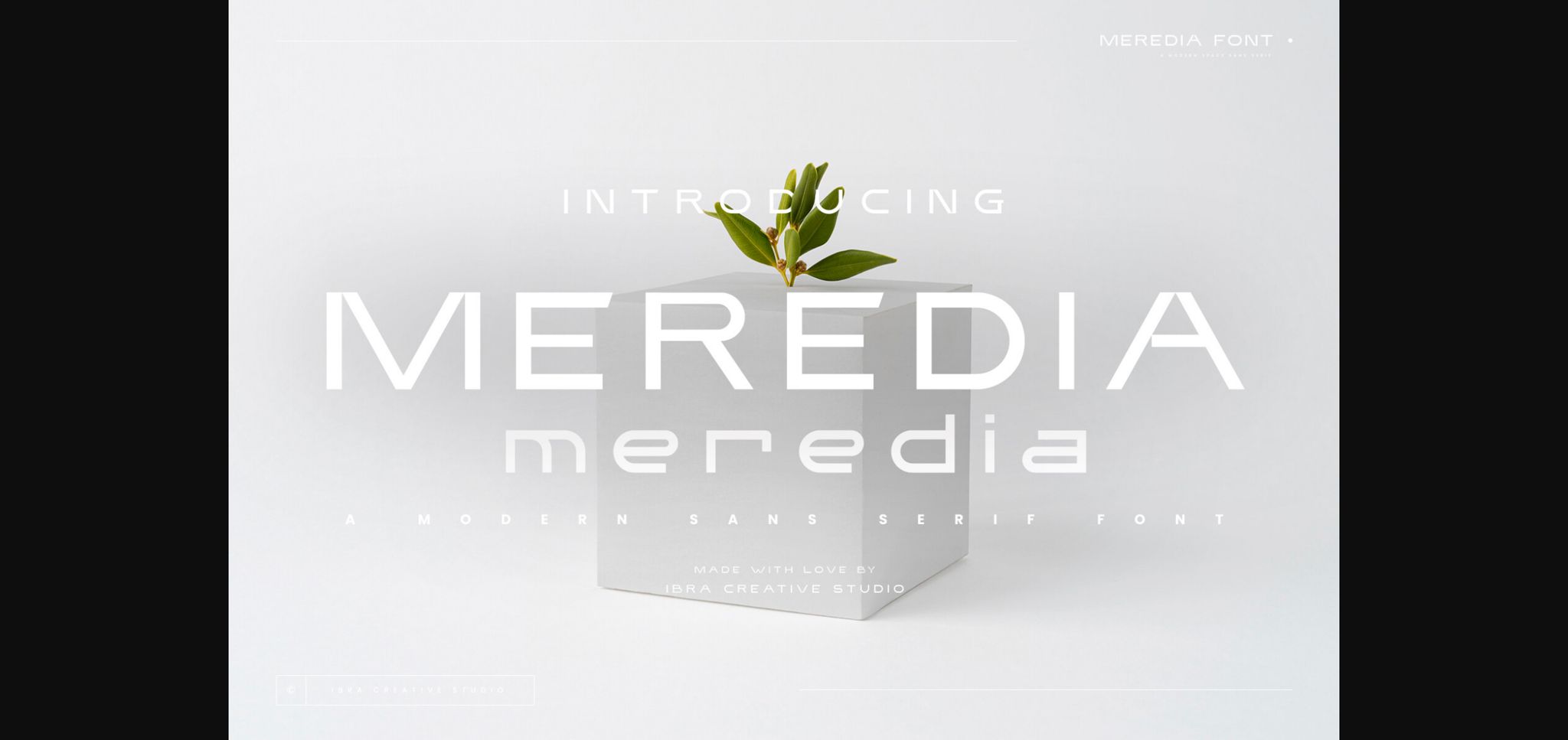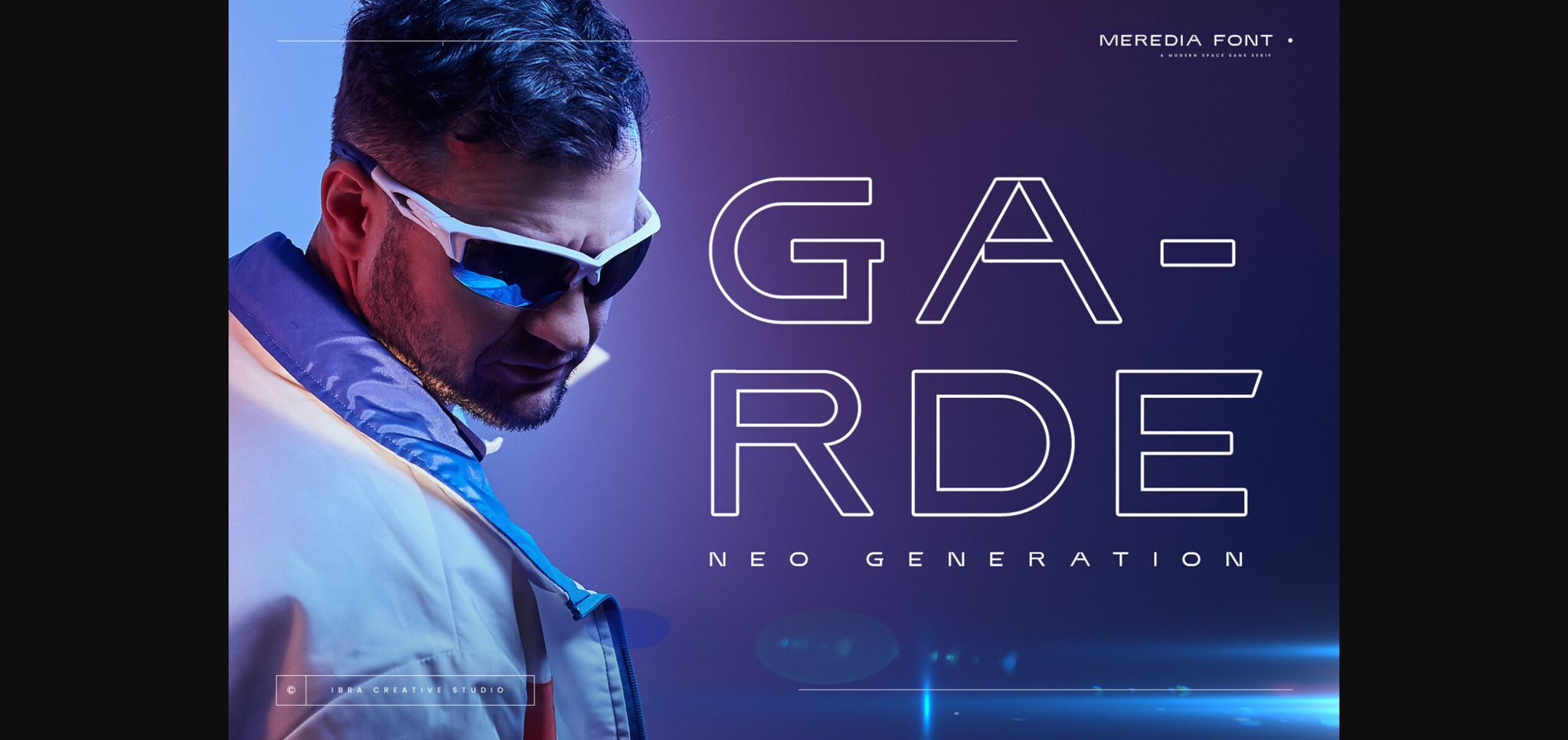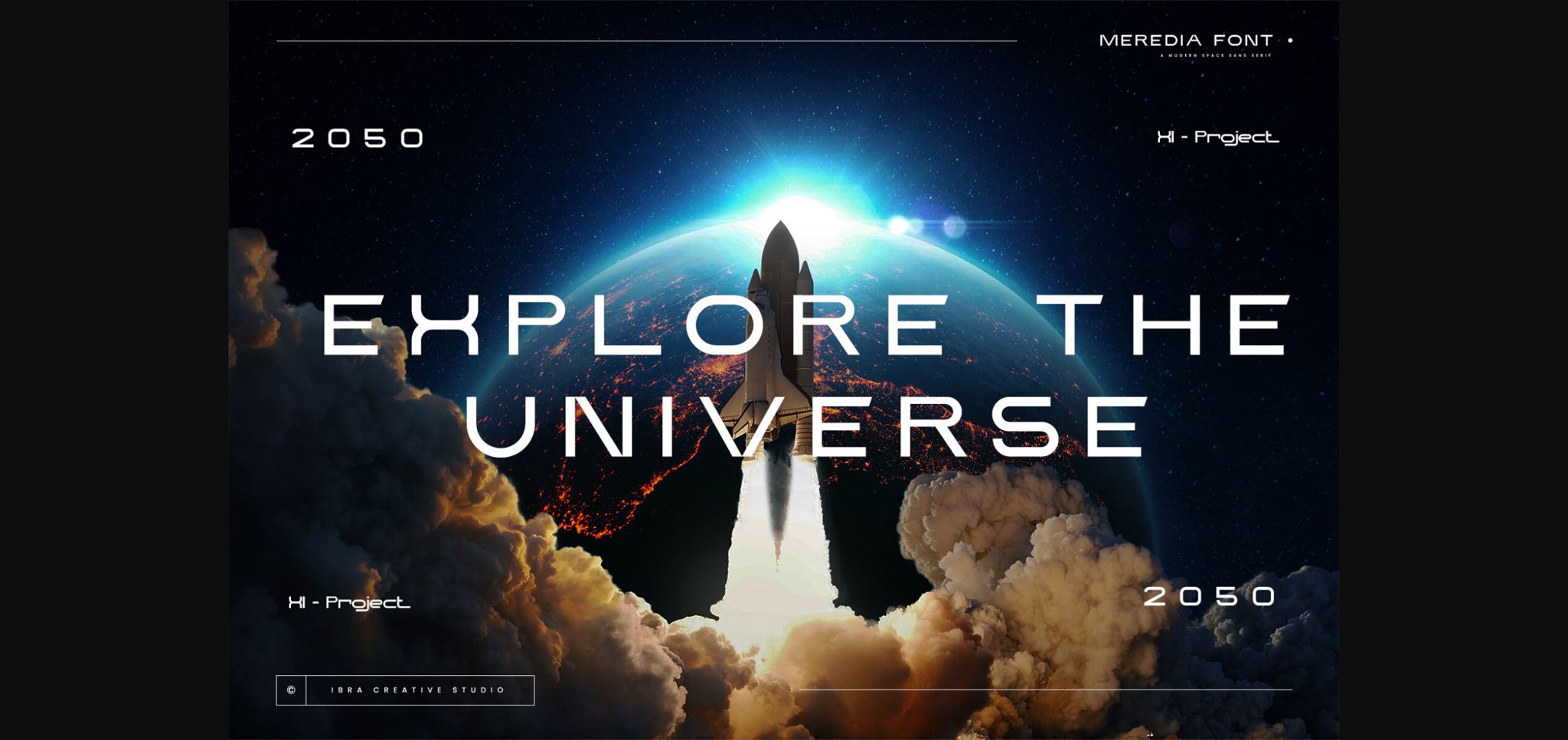
About Meredia Font
Meredia is a striking modern space sans serif typeface that embodies contemporary design principles with its clean lines and geometric shapes. This versatile font exudes a sense of sophistication and minimalism, making it an ideal choice for a wide range of applications, from digital interfaces to printed materials. With its well-balanced letterforms, Meredia exudes a sense of professionalism and readability while embracing a futuristic aesthetic, making it a standout choice for designers seeking a sleek and timeless typeface for their projects.